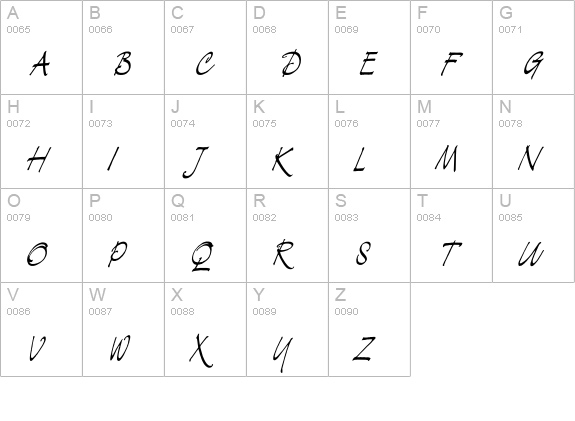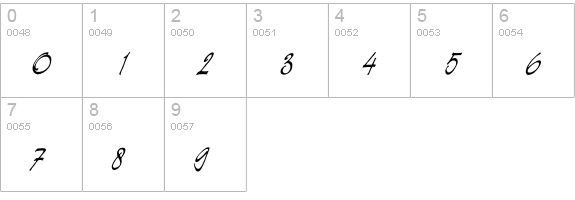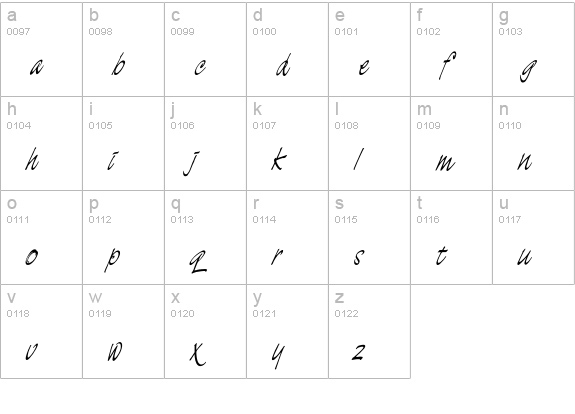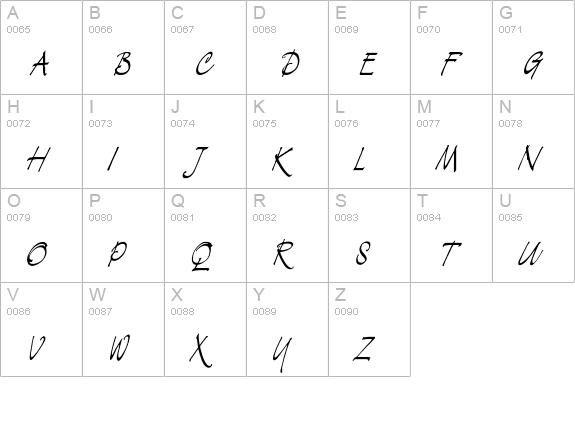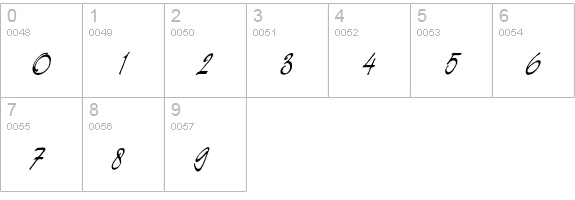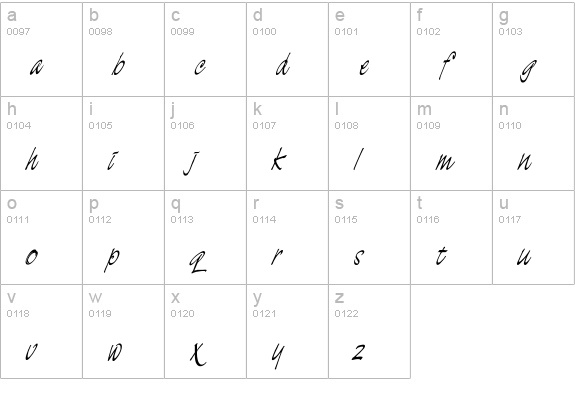
Lugano Font Details
Lugano font is a modern and sophisticated typeface that exudes elegance and professionalism. With its clean lines and stylish design, Lugano is perfect for a wide range of projects, from branding to editorial design. This versatile font features a sleek, contemporary look that will make your text stand out and leave a lasting impression on your audience. What's even better is that Lugano font is available for free download at FontsMarket.com. This means you can easily access and use this beautiful typeface in your projects without any cost. Don't miss out on the opportunity to enhance your designs with Lugano font's unique charm and appeal. Download it now and take your typography to the next level!